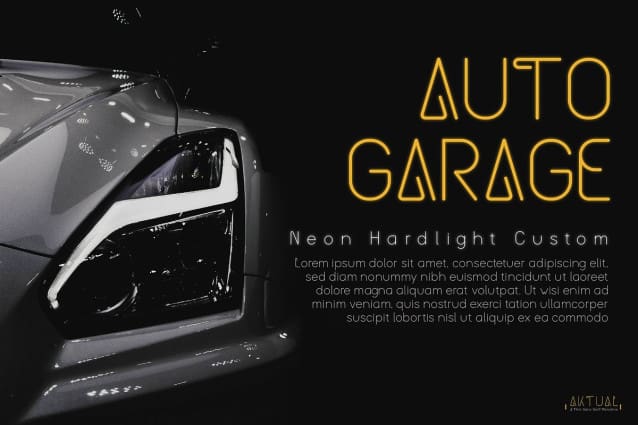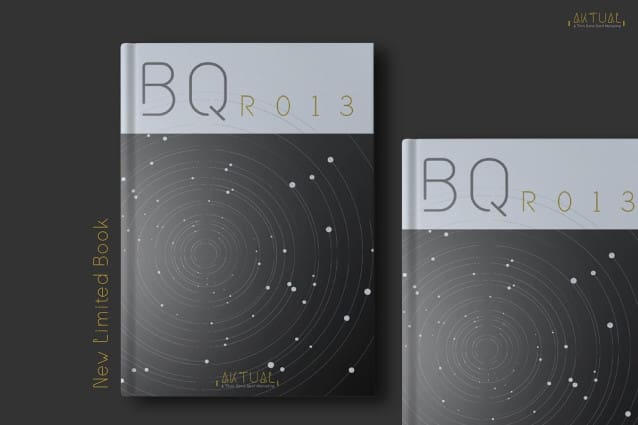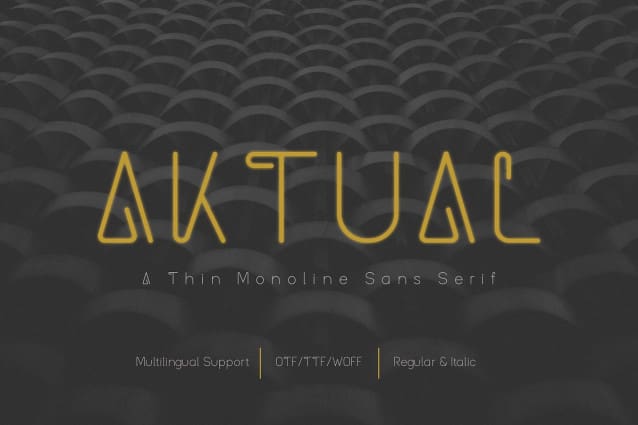
Aktual Font
Aktual Font | Thin Monoline Sans Serif, from Denustudios, suitable for any projects such as: logos, branding projects, homeware designs, product packaging, mugs, quotes, posters, shopping bags, t-shirts, book covers, name card, invitation cards, greeting cards, label, photography, watermark, special events, and all your other lovely projects that need a Thin Monoline Sans Serif script taste.